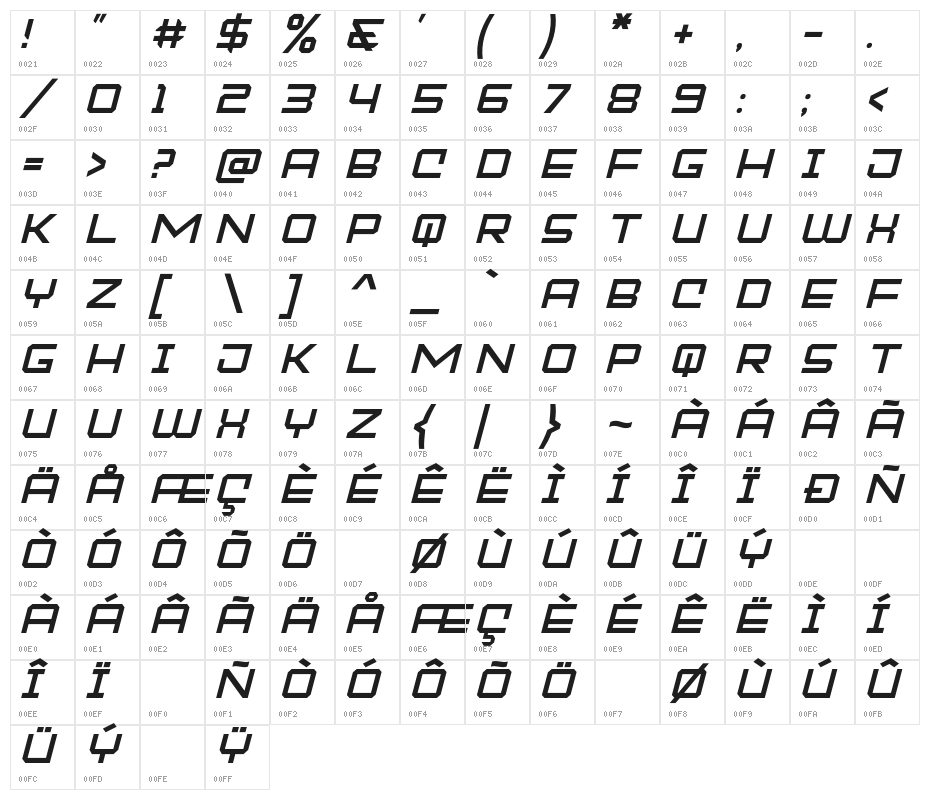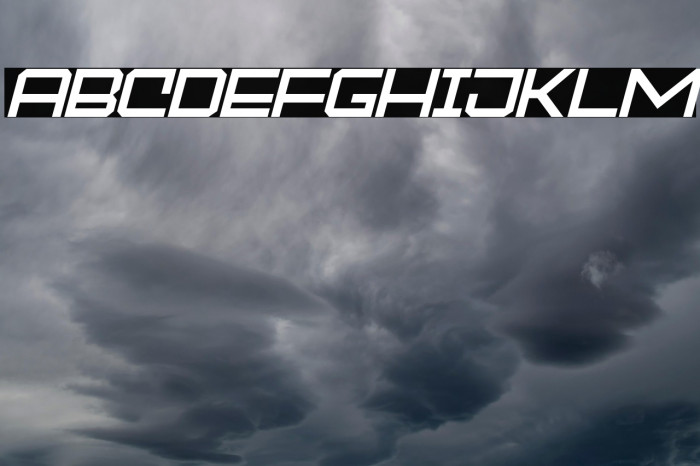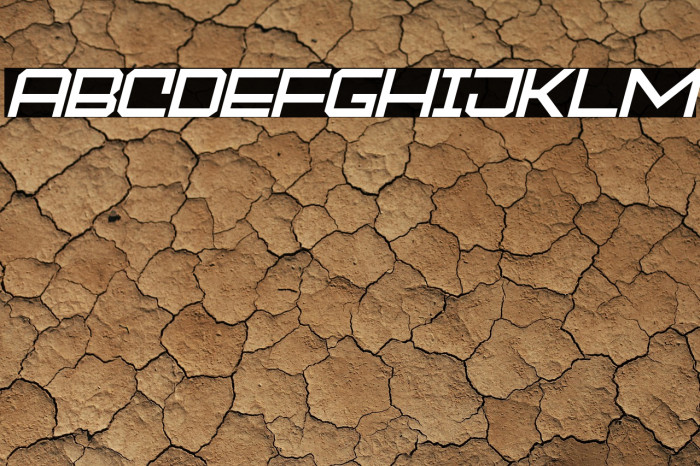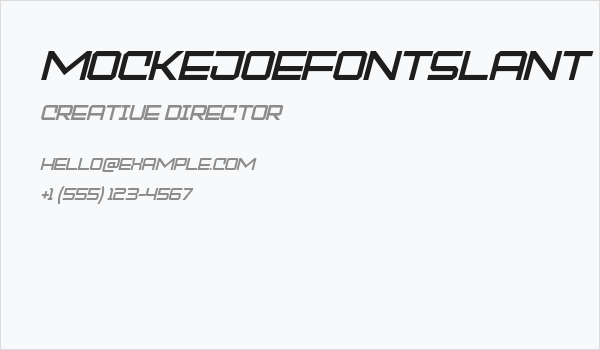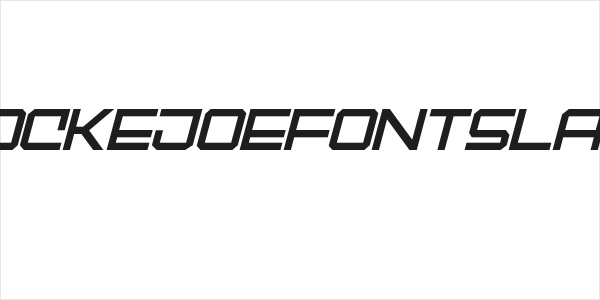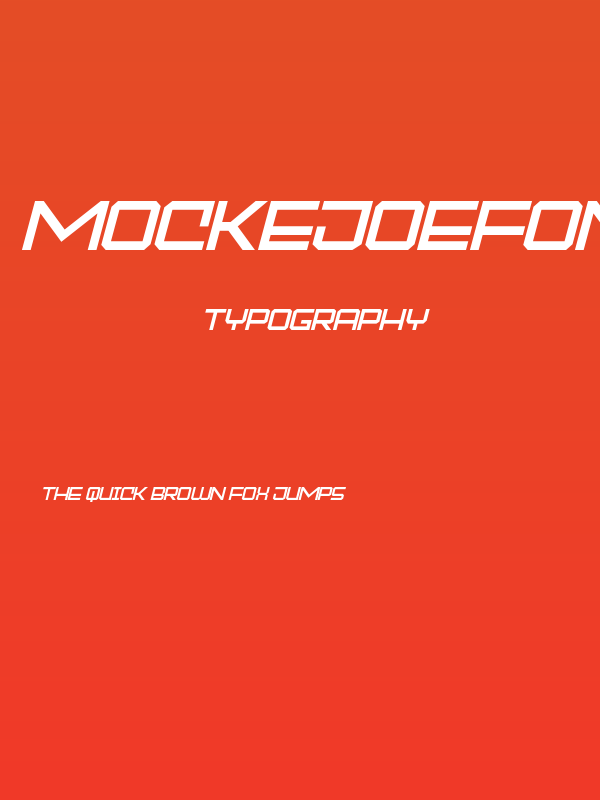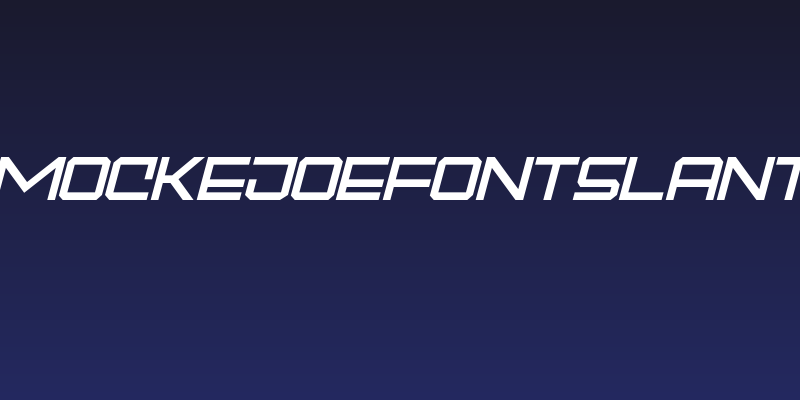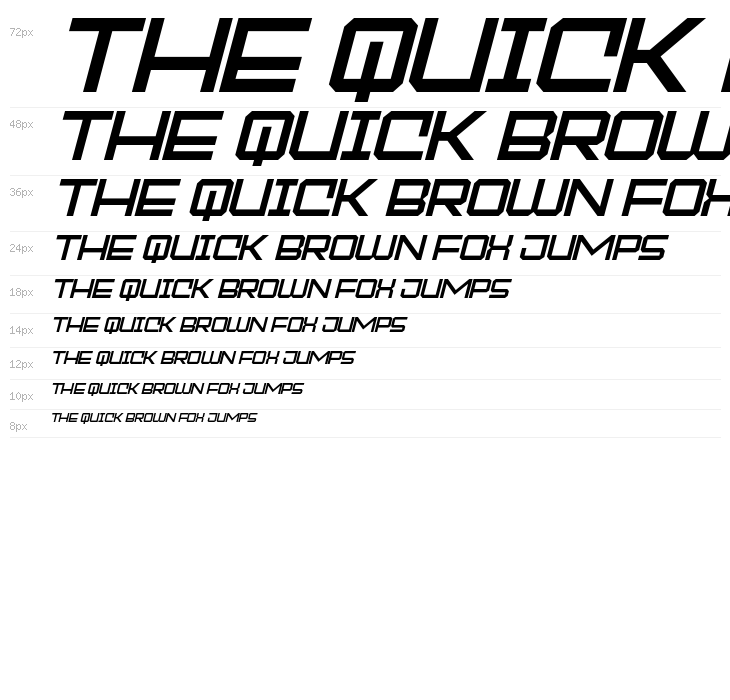
MOCKEJOEFONTSLANT Font
MOCKEJOEFONTSLANT Description
This font exhibits a bold, angular design with a distinct slant, giving it a dynamic and futuristic appearance. The characters are constructed with sharp edges and a geometric style, creating a sense of speed and modernity. The uppercase and lowercase letters maintain a consistent slant, enhancing the cohesive look of the typeface. Numbers and special characters follow the same stylistic approach, ensuring uniformity across all glyphs. The overall design is striking and attention-grabbing, making it suitable for projects that require a bold statement.
| Proposed Projects | Ideal for technology branding, sports team logos, video game titles, and sci-fi themed designs. |